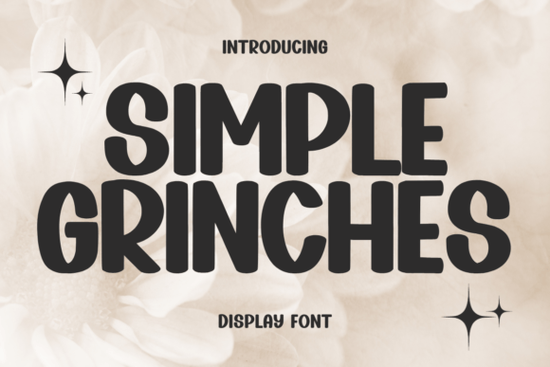
Looking for a display font that feels festive without being over the top? Simple Grinches is a clean, elegant typeface with just enough personality to stand out. Whether you're designing holiday cards, seasonal merchandise, or social media graphics, this font brings a refined charm that works across many creative projects. You can explore the full font details here.
What Does Simple Grinches Font Look Like?
Simple Grinches is a display font with a graceful, distinct style. Its letterforms are smooth and well-balanced, giving it a polished look that still feels warm and approachable. Unlike heavily themed holiday fonts, this one keeps things subtle. The elegance in its curves and spacing makes it versatile enough to use beyond just December designs.
It works beautifully at larger sizes think headers, titles, and featured text where its details can really shine. If you've been browsing retro vintage display fonts for that nostalgic feel but want something cleaner, Simple Grinches offers a nice middle ground.
What Can You Use It For?
This font fits a wide range of creative work. Here are some popular uses:
- Holiday cards and invitations Its festive name and elegant lines make it a natural choice for seasonal greetings.
- Print-on-demand products Mugs, t-shirts, tote bags, and posters all benefit from a bold, readable display font.
- Social media graphics Headers, quote posts, and promotional banners look sharp with a clean typeface like this.
- Small business branding Bakeries, gift shops, and event planners can use it for logos, menus, and signage.
- Scrapbooking and crafting Digital and paper crafters often look for fonts with personality, and this one delivers without overwhelming a layout.
How Does It Compare to Other Display Fonts?
There are plenty of display fonts out there, so how does this one hold up?
Compared to heavier, bolder styles like chunky retro display fonts, Simple Grinches leans more refined. It doesn't try to grab attention through sheer weight instead, it draws the eye with its clean lines and timeless shape.
Tips for Getting the Most Out of This Font
- Use it at larger sizes. Display fonts like this one are designed for headlines and featured text. At small sizes, the details may get lost.
- Pair it with a simple sans-serif. Body text should stay readable. A clean sans-serif complements the personality of Simple Grinches without competing for attention.
- Watch your spacing. Because the letterforms have elegant curves, a little extra letter spacing can improve readability in certain layouts.
- Test it on both light and dark backgrounds. Its clean design holds up well across different color schemes, but always preview before finalizing.
Who Will Love This Font?
Designers who appreciate clean, elegant typefaces will find a lot to like here. Crafters looking for something festive but not cartoonish will appreciate the balance. Print-on-demand sellers who need a reliable holiday font that doesn't feel generic can count on it season after season.
Small business owners especially those in the food, gift, or event industries can use it to add a polished touch to marketing materials without hiring a designer for every piece.